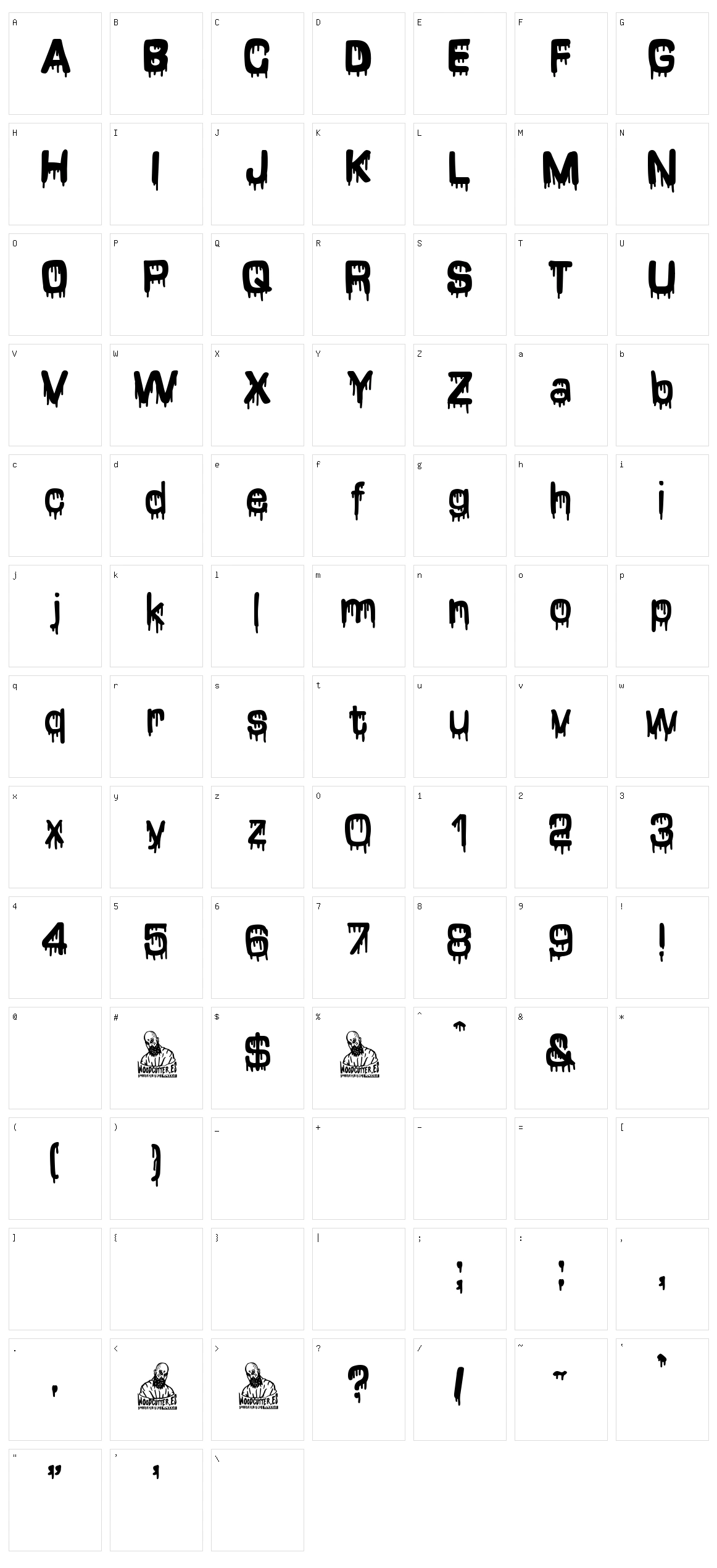
The free font Eurotrash Style is carefully designed by Woodcutter, showcasing a thoughtful balance of creativity and usability and falls under the Horror font style. When you download the ZIP file, it contains only 81.86 KB of font files, making it lightweight and quick to download. Please review the license details below to understand permitted usage and distribution rights. If license information is not available, we recommend using this font for personal projects only or contacting the author directly for commercial usage permissions.